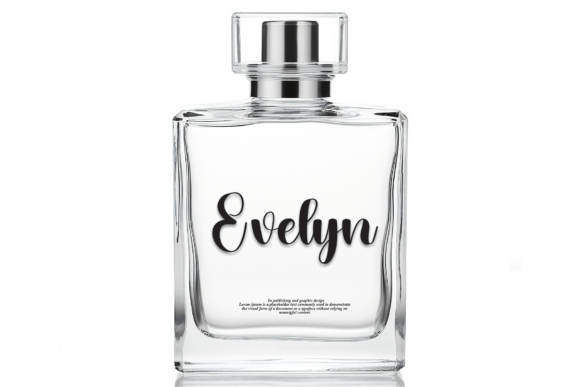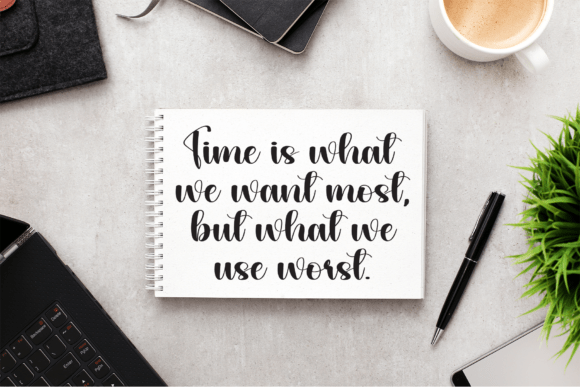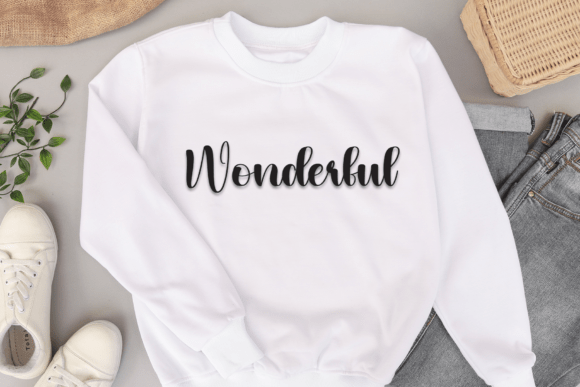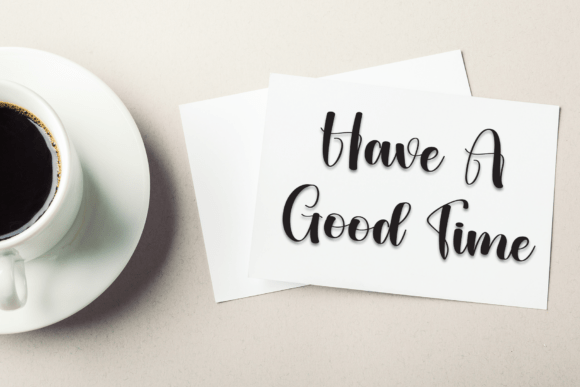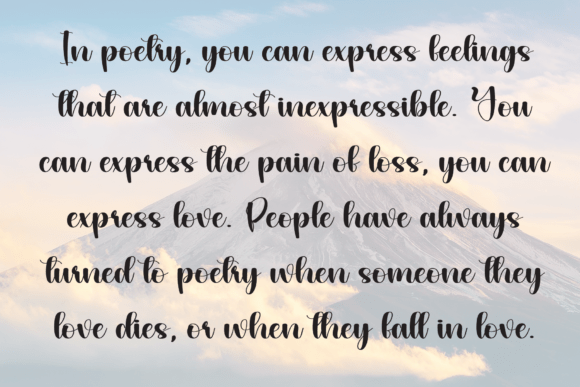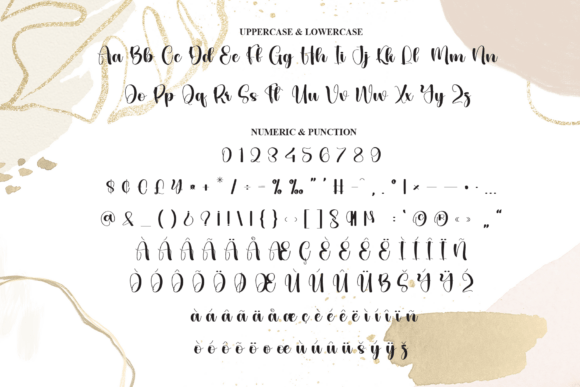
The Magic of Fancy: A Stylish Handwritten Script Font
I’ll never forget the time I was working on a wedding invitation project, and my client asked for a font that was both elegant and playful. I scoured the internet, tried out dozens of fonts, but nothing seemed quite right. That was until I stumbled upon Fancy, a beautiful handwritten script font that captured the essence of sophistication and whimsy. In this article, I’ll share my love for Fancy, its features, and how to make the most of it in your designs.
An Honest Review of Fancy
What I Love About Fancy ✨
• 💫 Elegant and refined, yet playful and fun
• ✅ Perfect for invitations, branding, and social media
• 🌈 Beautifully crafted with flowing curves and natural rhythm
• 📝 Highly legible, even at smaller font sizes
• ⚠️ Some characters may not work well in all contexts (e.g., uppercase letters in titles)
• 🤔 Limited availability of certain OpenType features in certain software
3. Experiment with OpenType features, such as stylistic alternates and glyphs, to add personality to your text
3. Explore OpenType features, such as ligatures and swashes, to add flair to your designs
3. Use the font’s built-in features, such as bold and italic styles, to add emphasis to your text
The Story Behind Fancy
Fancy was designed by a team of typographers who wanted to create a font that captured the essence of elegance and playfulness. Inspired by traditional calligraphy and handwritten scripts, they crafted Fancy to be both refined and fun. The result is a font that’s perfect for creative projects, invitations, and branding.
Q: What type of projects is Fancy best suited for?
A: Fancy is perfect for invitations, branding, social media, and any project that requires a touch of elegance and playfulness.
Q: Does Fancy support OpenType features?
A: Yes, Fancy supports OpenType features, including stylistic alternates, glyphs, and ligatures, which can be accessed in compatible software.
Q: Is Fancy suitable for body text?
A: While Fancy is highly legible, it’s best suited for headlines, titles, and short paragraphs. For longer body text, a serif font may be more suitable.